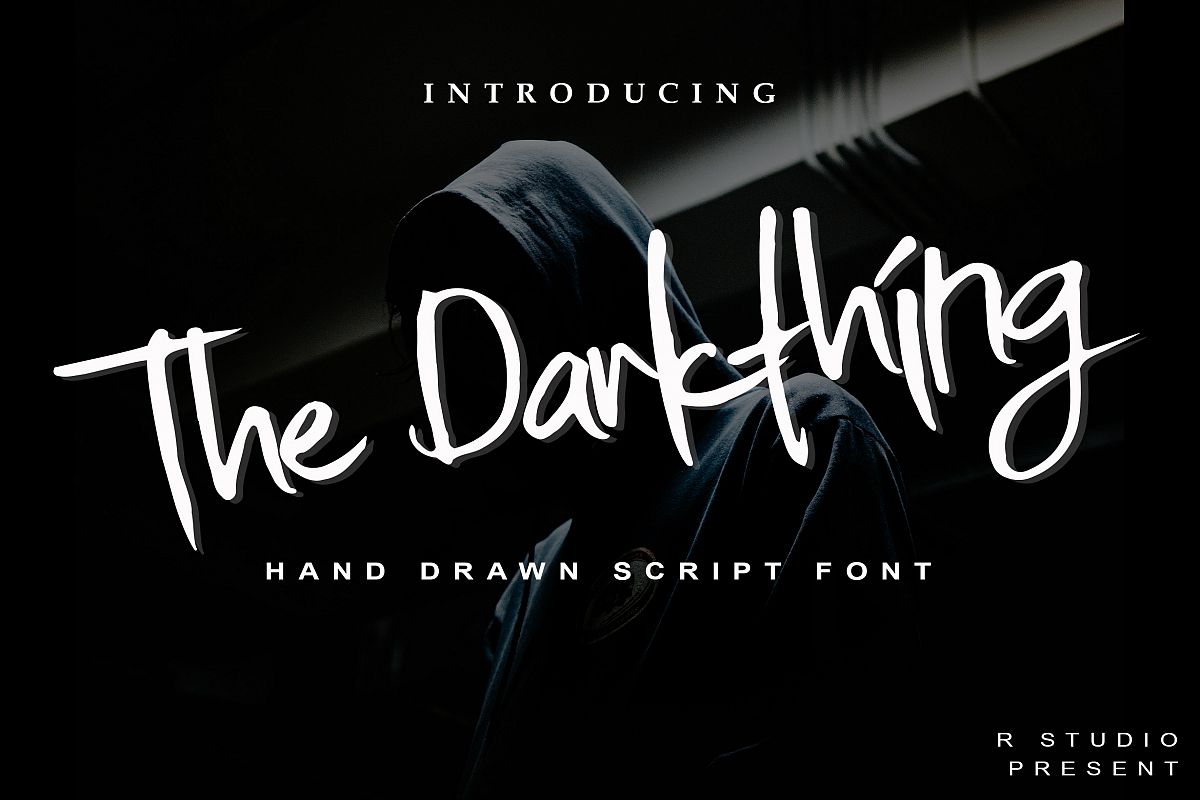
The Darkthing
The Darkthing is a hand-drawn brush font. It has a natural feel and it is perfect for  your designs.
It’s perfect for logos, clothing designs, posters, magazines, quotes and every other design which needs a natural touch.